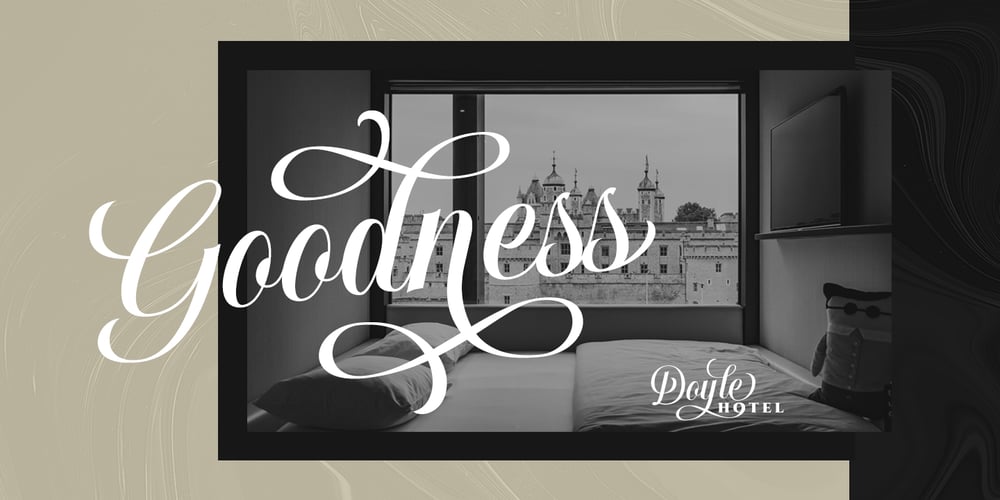
Hougbon Script
Hougbon Script font
Hougbon Script Font Family was designed by Hendry Juanda and published by Letterhend. Hougbon Script contains 1 styles and family package options. Hougbon is a script with feminine, smooth and glamour feels. Carefully made with up to 8 stylistic set each characters. This font perfectly made to be applied in various formal forms such as invitations, labels, logos, magazines, books, greeting / wedding cards, packaging, fashion, make up, stationery, novels, labels or any type of advertising purpose. Including number, symbol, punctuation and also with multilingual support. This font already PUA Encoded, so you can use it to another design apps without opentype feature.